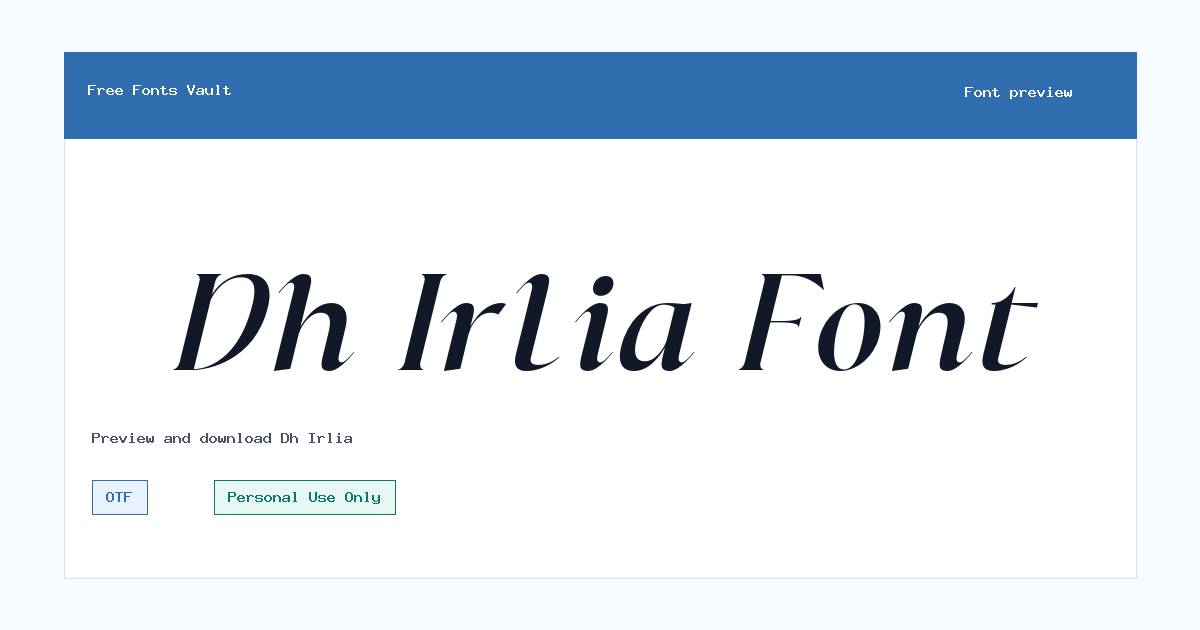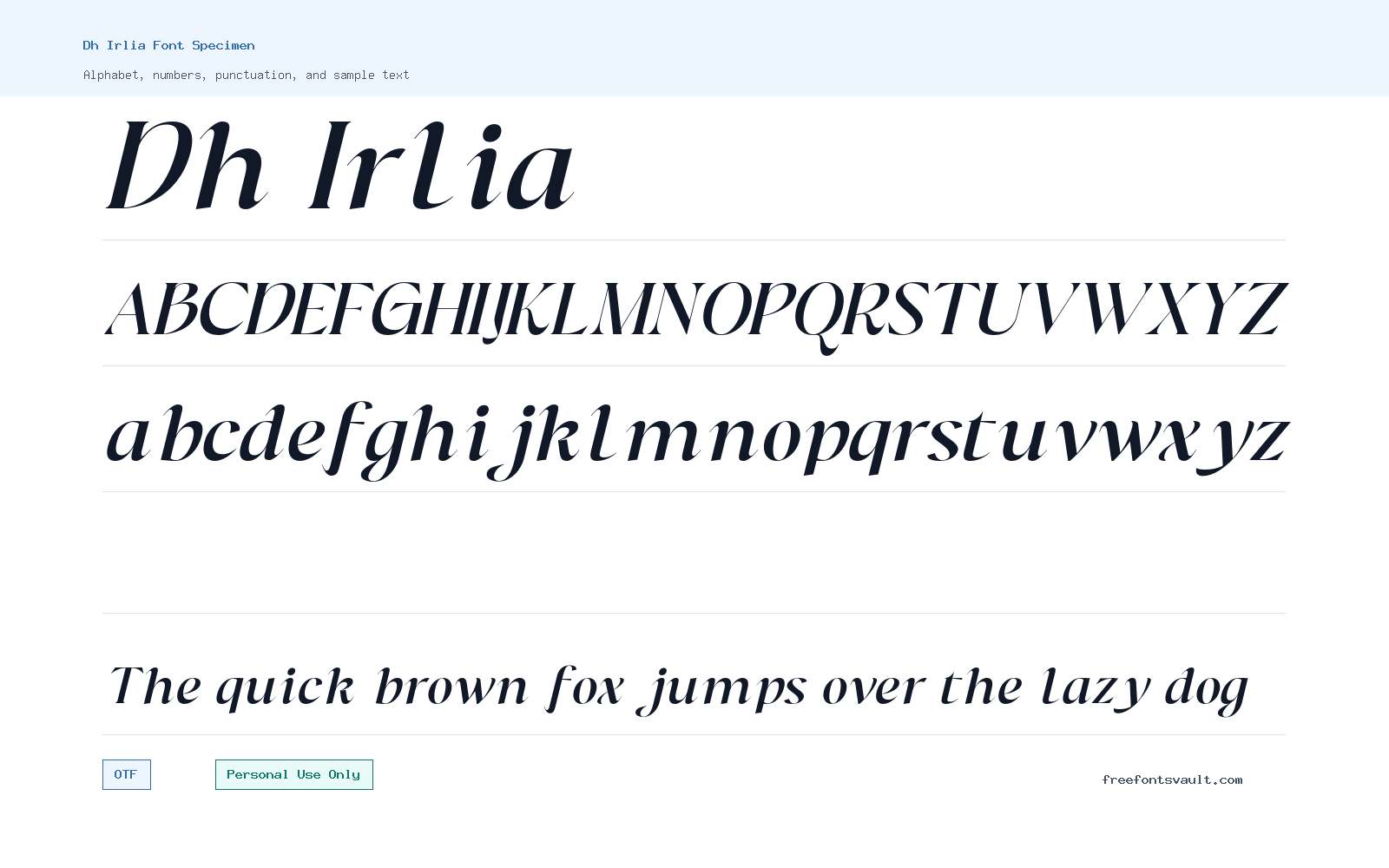
Dh Irlia
- Designer Jamaludin Ahmad Sahestya Dharma
- Foundry Dharmas Studio
Dh Irlia font.
Dh Irlia is a serif demo font with a strong display feel, suited to visitors who want a bold type style for testing titles, posters, and short pieces of text before downloading.
About Dh Irlia Font
Dh Irlia comes as an OTF font file in a regular style with a listed weight of 700, so it is best approached as a bold serif option rather than a light text face. Use the preview tool to test the exact words you plan to design with, especially if your project depends on names, headlines, initials, or decorative letter combinations. Serif display fonts can look very different from word to word, so checking spacing, punctuation, and uppercase forms before downloading is worthwhile.
- Bold serif styling listed as regular style with 700 weight
- Personal headline mockups, posters, invitations, and title experiments
- Testing bold serif lettering in short display text before choosing a project font
The font is credited to Jamaludin Ahmad Sahestya Dharma, with Dharmas Studio listed as the foundry.
What kind of projects is Dh Irlia best for?
It is best for short personal-use display text such as headings, poster drafts, invitations, name treatments, and layout experiments.
Is Dh Irlia good for long paragraphs?
It is better to test it as a display font. For long reading, pair it with a simpler text font and use Dh Irlia for titles or emphasis.